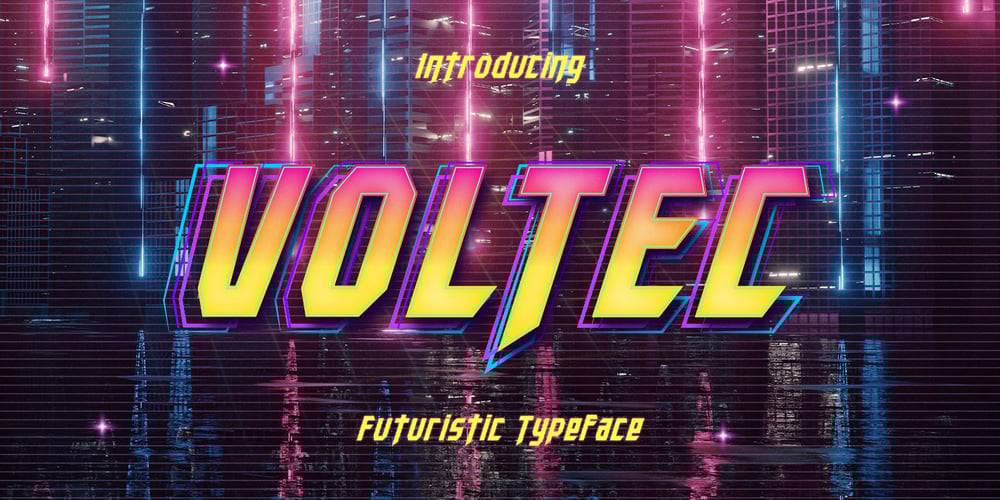
Voltec
Voltec font
Voltec Font Family was designed by Hilmius Akbar and published by Typefactory. Voltec contains 1 styles and family package options. Voltec is a sharp, angular, futuristic font in a modern style.Perfect for sci-fi themes and space adventures!